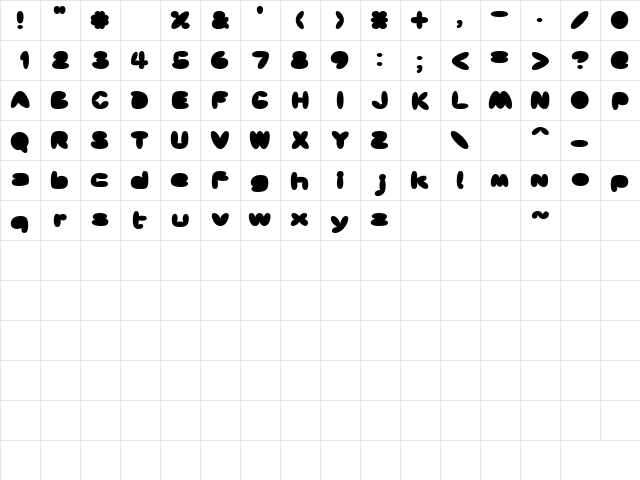
FatfontSolid Regular
Design Context for FatfontSolid Typeface
FatfontSolid is a composed and adaptable typeface that performs quietly and consistently across a wide range of design contexts.